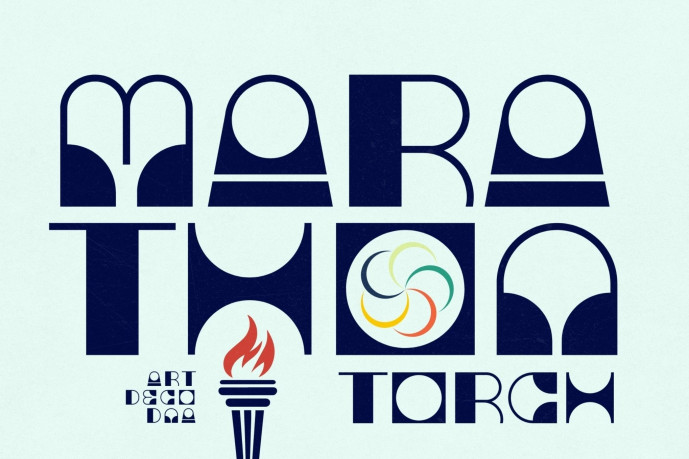
Marathon Torch Font
Designer: epdesigns
Marathon Torch Font is a bold, brutalist display typeface inspired by 1950s Olympic typography, mid-century signage, and monumental architecture. Constructed with strong geometric shapes, high proportions, and striking negative space, this typeface is powerful, athletic, and timeless. It reflects the spirit of postwar optimism, where design was confident, functional, and
Designed to last.
Combining Art Deco elegance with a raw, brutalist structure, Marathon Torch features sculpted letters that appear carved rather than drawn. Stylized capitals, playful lowercase letters, and retro-inspired numerals create a unique balance of authority and personality. Each glyph is designed to stand out, making this typeface perfect for high-impact visual storytelling.
Ideal for sports brands, posters, logos, editorial headlines, event graphics, fashion campaigns, and film titles, Marathon Torch is a distinctive typeface designed to command attention. If your project needs strength, movement, and an iconic presence, this font carries the torch.